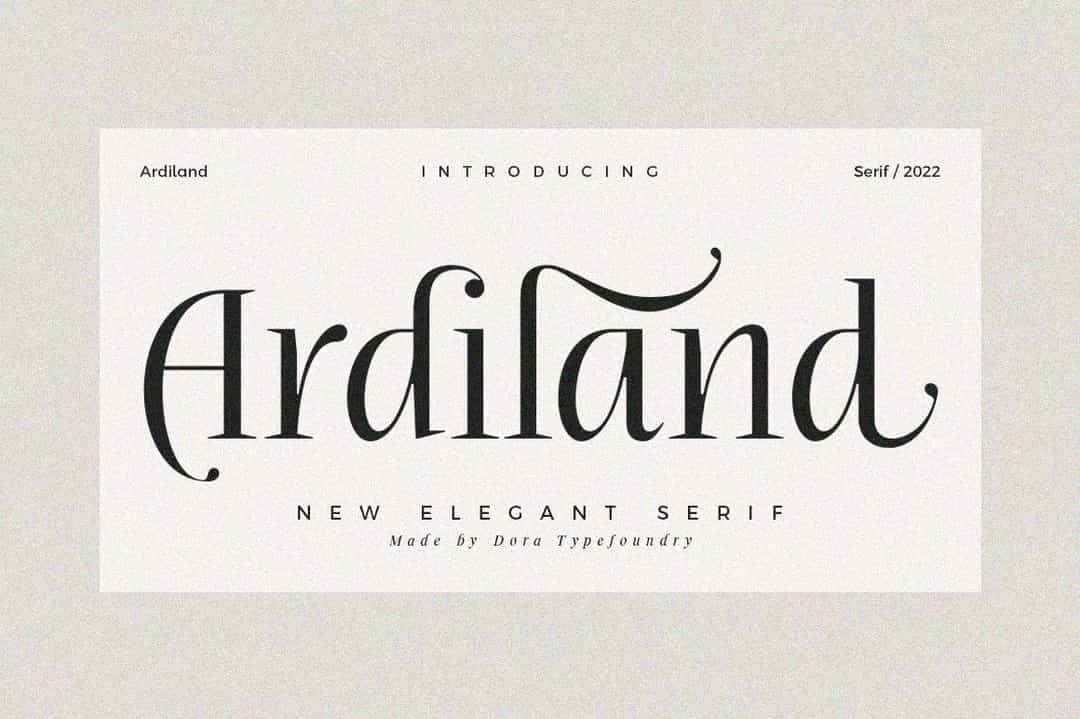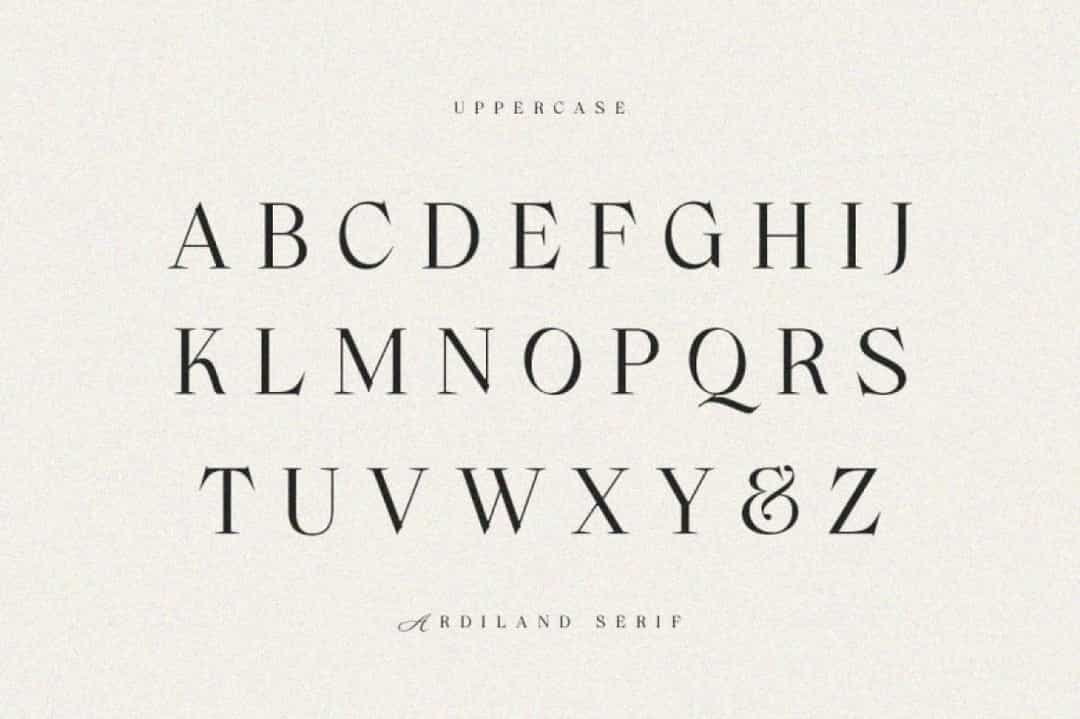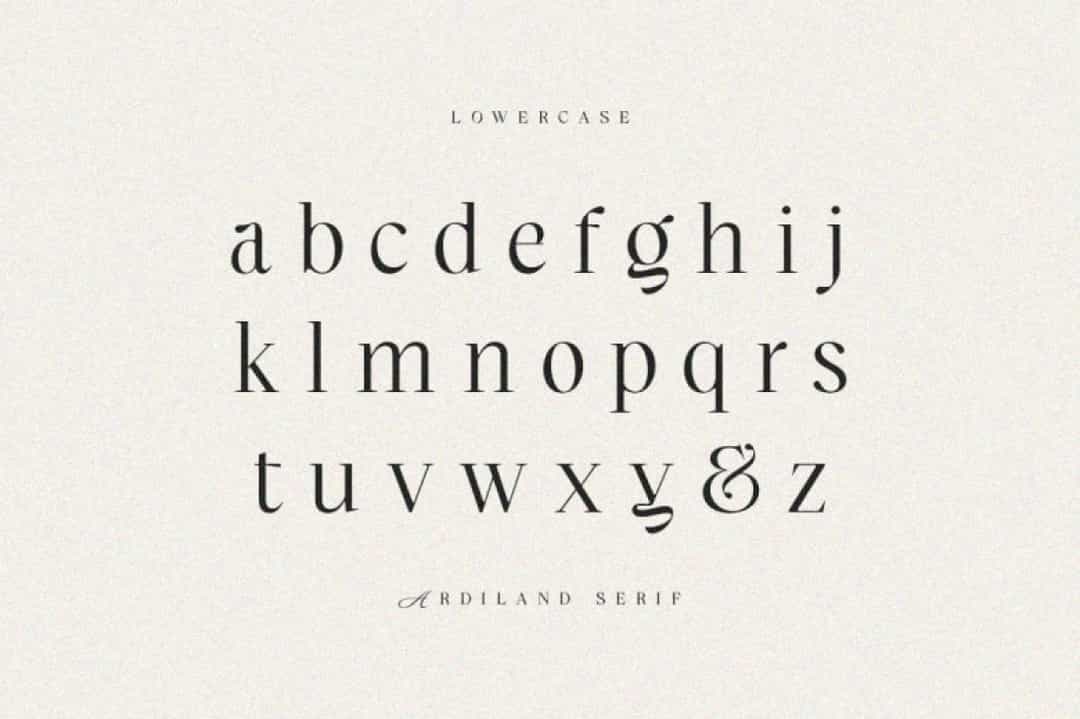
Ardiland can be described as an elegant serif typeface suitable for editorial design and graphic projects, featuring a distinctive high contrast lightweight binding style that’s lightweight yet luxurious in appearance.